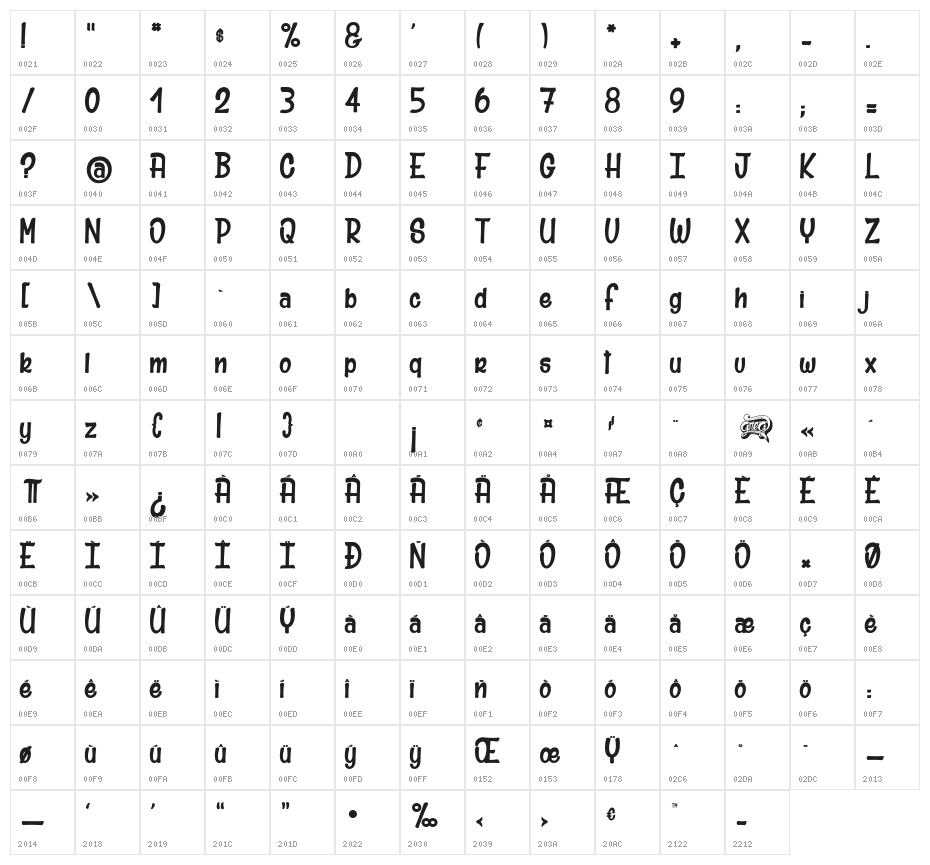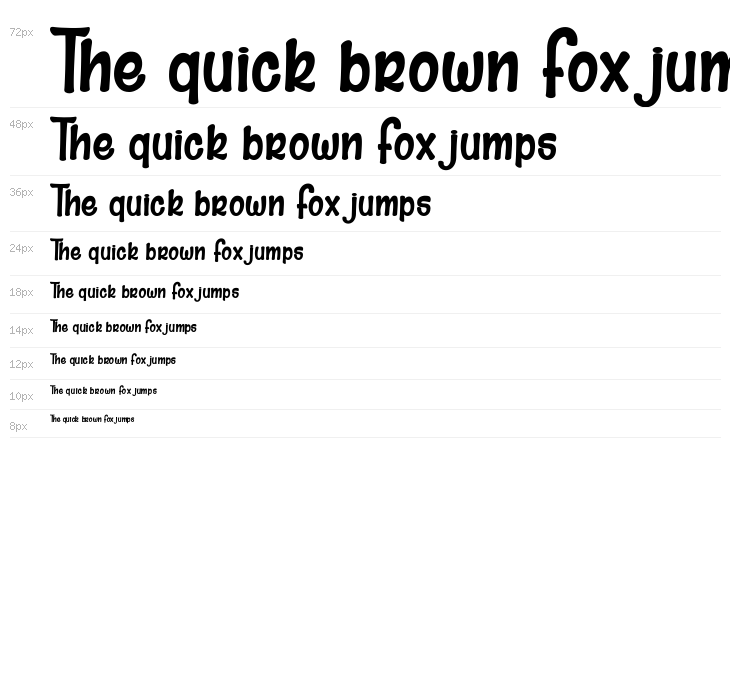
Mr Sunshine 2 Font
Mr Sunshine 2 Description
This font features a playful and bold style with rounded edges and a slightly whimsical appearance. The characters are thick and have a consistent stroke width, giving them a strong presence. The uppercase letters are uniform in height, while the lowercase letters have a friendly, approachable look. The numbers are clear and easy to read, maintaining the same boldness as the letters. Special characters are designed to match the overall playful theme, making this font suitable for casual and fun projects.
| Overall Style | Playful |
| Proposed Projects | Ideal for children's books, playful branding, party invitations, and casual posters. |